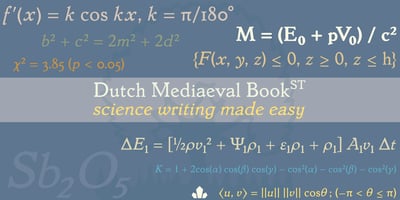
Dutch Mediaeval Book ST Font Family was designed by Hans van Maanen, Patrick Griffin and published by Canada Type. Dutch Mediaeval Book ST contains 3 styles and family package options. Dutch Mediaeval Book ST is a special version of the popular Dutch Mediaeval Book text fonts, engineered specifically for science writing. It is equipped with SciType, a combination of additional characters and OpenType programming included in the fonts to help in typesetting science text. For more information about SciType, please consult the SciType FAQ available in the Gallery section of this page. The Dutch Mediæval design is the historically renowned one made in 1912 by S. H. de Roos. It stands out as one of the most classic Dutch text faces. This Book version comes in two weights and an italic, optimized for body copy use between 8 and 12 pt. Aside from the SciType additions, all the fonts contain OpenType features for ligatures, ordinals, automatic fractions, eight kinds of figures, and a few ornaments. For details about the functionality of Dutch Mediaeval Book ST, please consult its Access Chart PDF available in the Gallery section of this page.